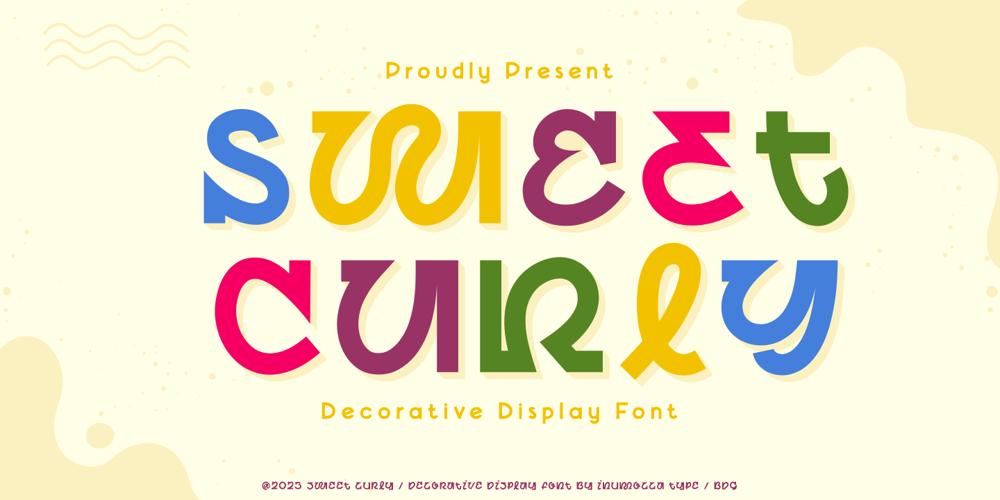
Sweet Curly
Sweet Curly font
Sweet Curly Font Family was designed by Inu Mocca and published by Inumocca. Sweet Curly contains 1 styles and family package options. Sweet Curly inspired from Girls handlettering,more unique character decorative, fancy, powerfull and beautiful.Really Beautiful font to covering your Project, like For logos, Poster art, Magazine, Branding, Sticker and more your project design.- Unique glyphs- Multilingual Characters- UPPERCASE- Lowercase- Numeric- Symbol- Punctuation Character- PUA encodedinumoccatype